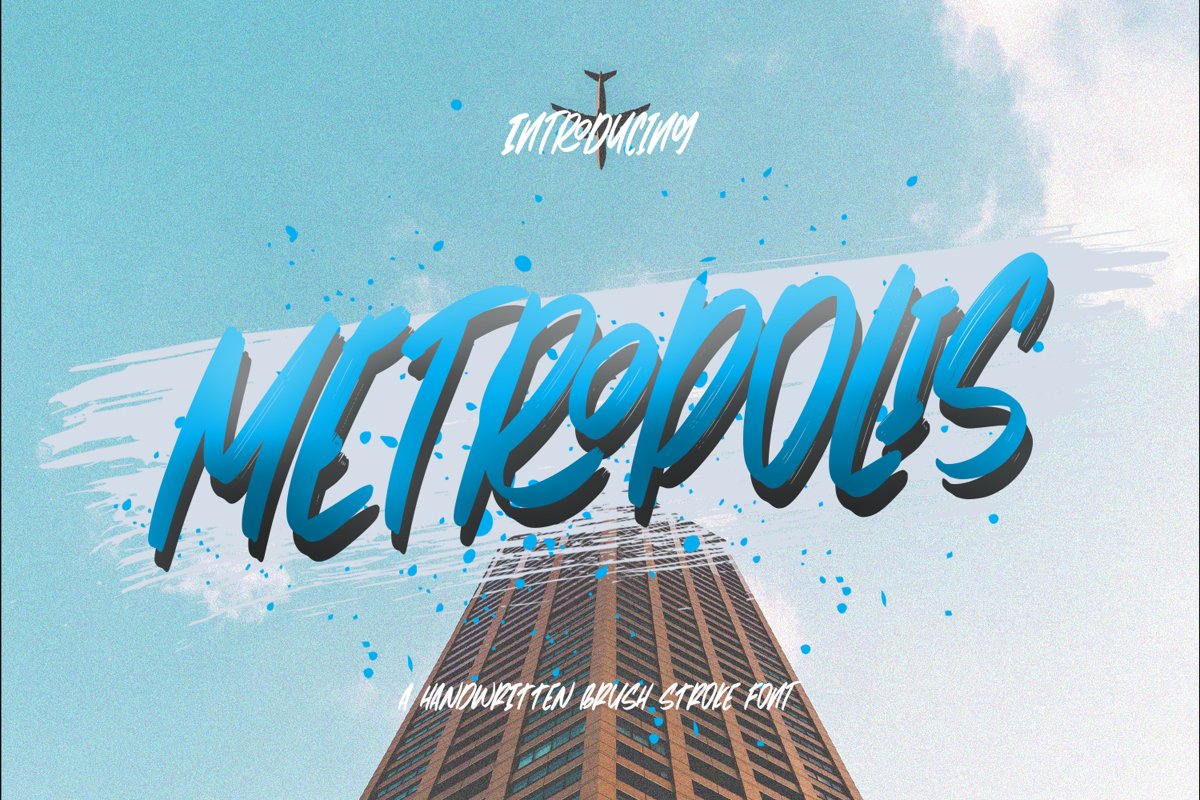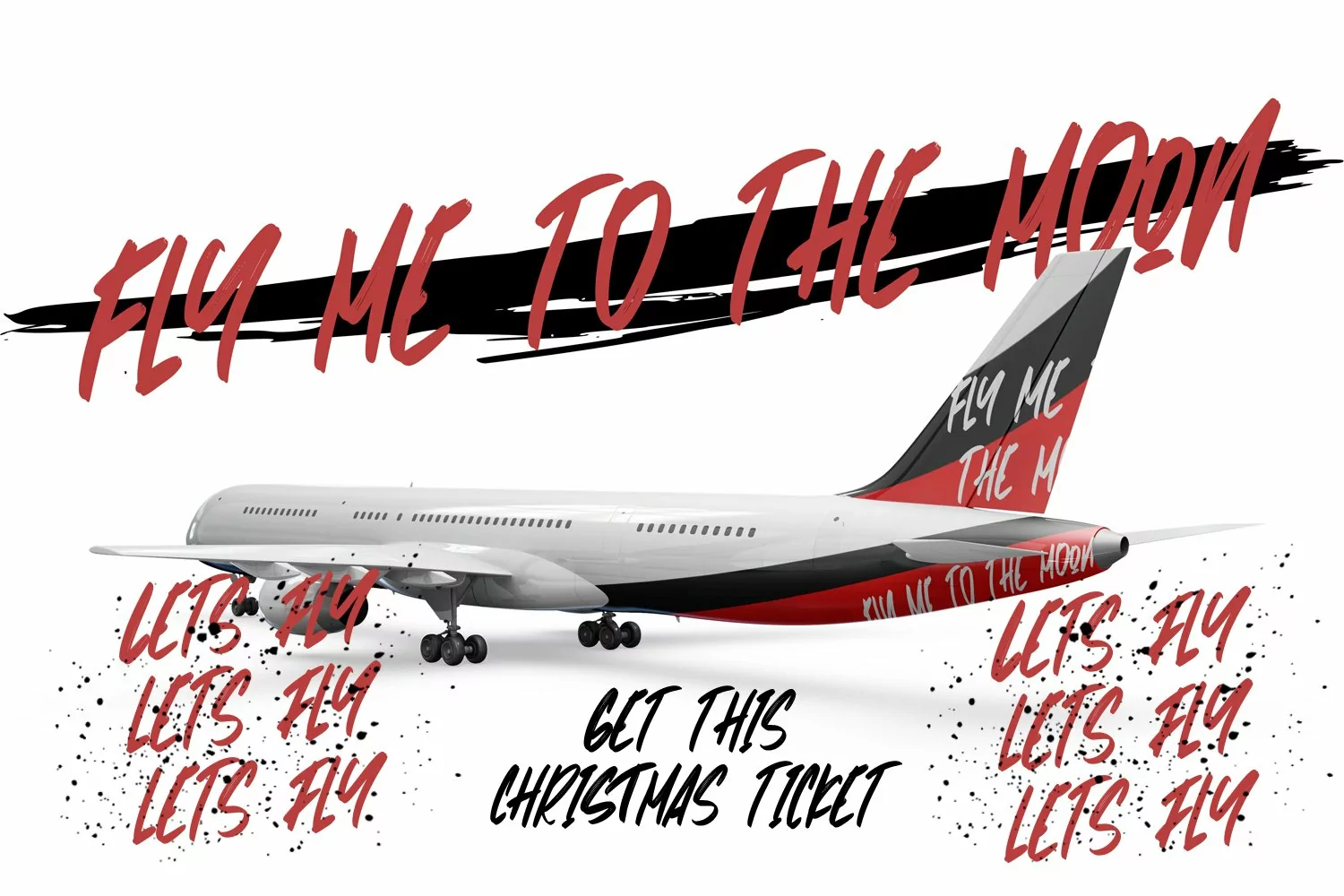
Metropolis - Handwritten Brush Font that contain lowercase, uppercase, symbol, and also support multi language. There’s a lot ligatures in this font. This Font also comes with ligatures, alternates and many more. this font suitable for fashion, branding, catalog and other design what you want.
Metropolis